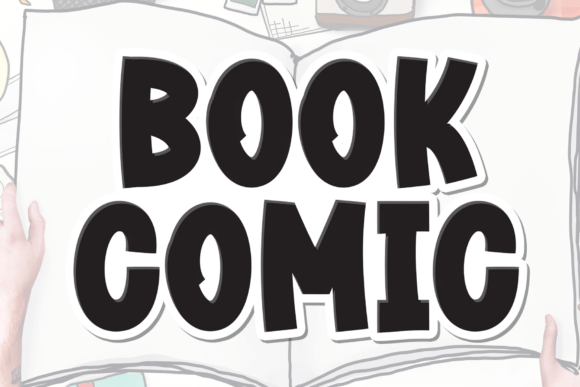
A Refreshing Design Solution for Summer Vibes
Who hasn’t spent a lazy summer afternoon flipping through a favorite comic book or browsing a quirky poster at a music festival? The carefree feeling of those moments is exactly what designers strive to capture in their creative projects. But, let’s face it, finding the perfect font can be a challenge. That’s where the Book Comic Font comes in – a delightful display font that embodies the essence of relaxation and fun.
Perfect for summer posters, event flyers, and playful branding, the Book Comic Font is a valuable addition to any designer’s toolkit. Its clean lines and easygoing vibe make it an ideal choice for conveying a breezy, laid-back feel to any message or creative project. With its cheerful personality, this font is sure to bring a smile to your audience’s faces and leave a lasting impression.
Key Features of Book Comic Font
- Unique Characteristics: Hand-drawn design with a comic book feel, perfect for graphic novels and children’s books
Book Comic Font Review
First impressions count, and Book Comic Font’s unique design does just that. The ✨ irregular shapes and lines ✨ immediately grab your attention and give off a sense of whimsy. It’s perfect for adding a touch of playfulness to children’s books, comic strips, or any other project that needs a bit of charm.
The font’s versatility shines through in its ✨ multiple weights ✨, which can be used to create visually appealing combinations and add depth to your designs. This feature is especially useful for designers who want to create a sense of hierarchy in their text.
- ⚠️ Legibility can be an issue in certain contexts ⚠️, particularly when used for large blocks of text. The font’s irregularities can make it difficult to read, especially for those with visual impairments.
- ⚠️ Limited support for non-English languages ⚠️, which may limit its use for global projects.
Overall, Book Comic Font is a great choice for designers looking to add a touch of personality to their projects. While it may have its limitations, its unique design and versatility make it a valuable asset in the right contexts.
Book Comic Font Practical Application Guide
Tips for Getting the Most Out of Book Comic Font
Use Book Comic font for creating a vintage or retro look in your designs.
Pair it with bold fonts for emphasis or use italics for a more playful tone.
Experiment with different font sizes and styles to create a unique visual effect.
Book Comic font is commonly used in:
Comic book illustrations and graphic novels.
Children’s book illustrations and educational materials.
Retro-themed designs and advertisements.
Alternatives to Book Comic Font
Playfair Display is a luxurious and elegant serif font, ideal for creating a sophisticated and high-end design. It’s perfect for use in headings, titles, and other large text elements where a touch of sophistication is needed.
Comparison to Book Comic Font: While Book Comic Font is a modern and playful font, Playfair Display is more formal and elegant. It’s a good choice when you need a font that exudes luxury and sophistication, whereas Book Comic Font is better suited for more casual and approachable designs.
Lato is a modern sans-serif font that is highly legible and versatile. It’s a great choice for use in body text, headings, and other text elements where a clean and modern look is desired.
Comparison to Book Comic Font: While both fonts are modern and clean, Lato is more minimalist and lacks the playful flair of Book Comic Font. Lato is a good choice when you need a font that is easy to read and doesn’t distract from the content, whereas Book Comic Font is better suited for designs where a touch of personality is needed.